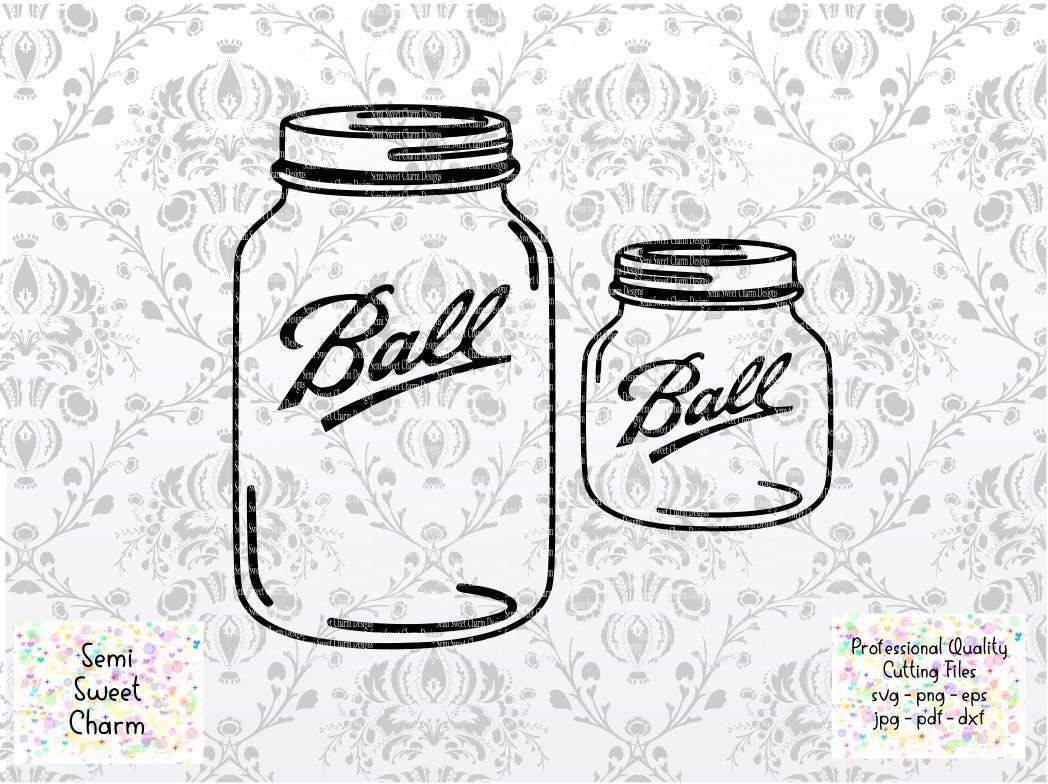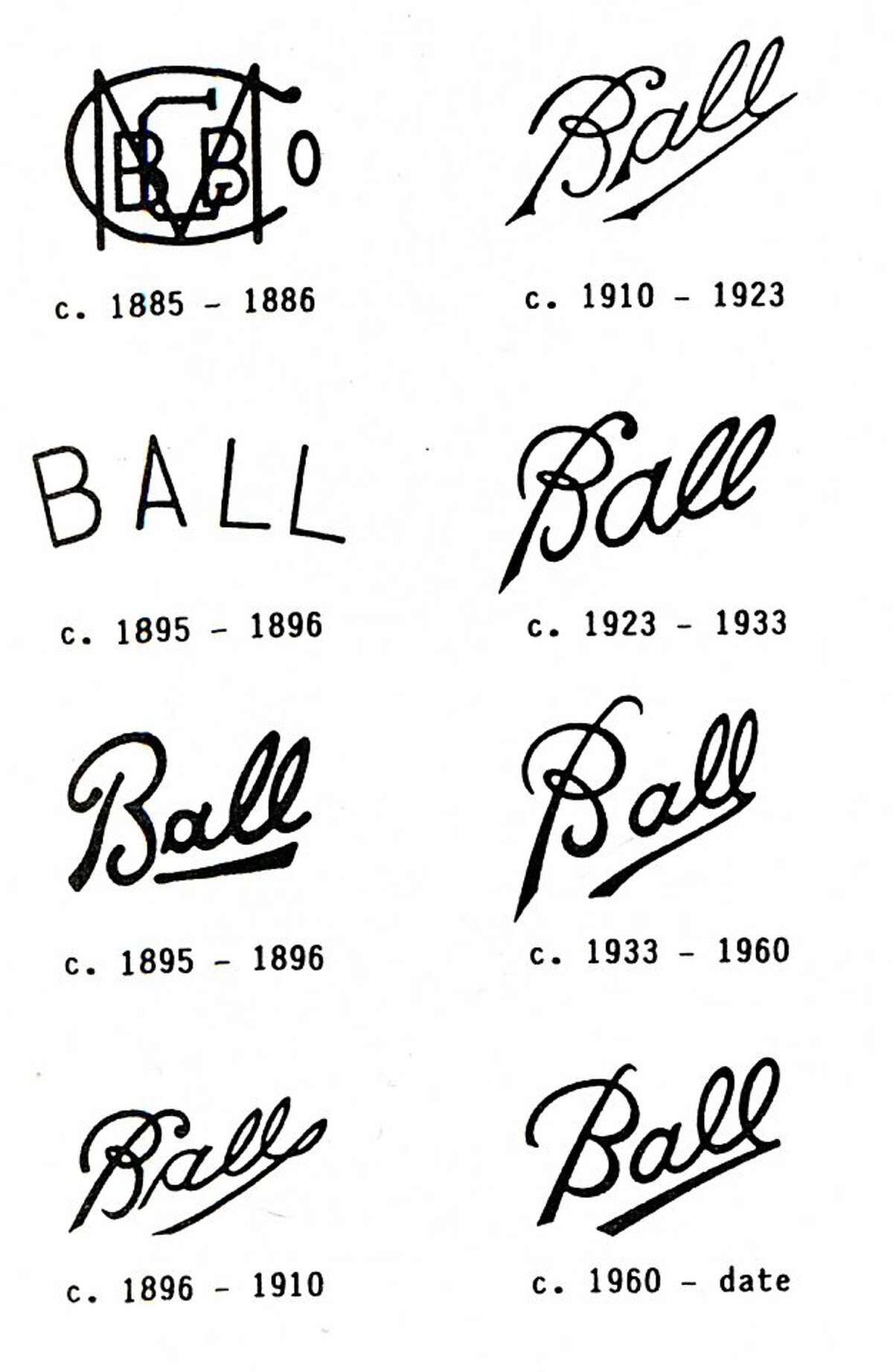
What Is The Ball Mason Jar Font . Can anyone give me more info on this ball mason jar. Another similar one is brannboll, here on dafont. Two brothers, frank clayton ball and edmund burke ball, after. In script > old school. Collection of fonts for mason jars. Brannboll à € by mans greback. Ball mason jars are a type of home canning jar made by the ball corporation. It has the swooping line to go under the letters, also. Hope it's not too late! Fall is coming by misti's fonts. The company started making mason jars back in 1880, and. I was looking for the ball font myself because i am in the middle of designing a ball mason jar stencil!!!! I read it might be a. The block lettering doesn't fit the normal id chart.
I was looking for the ball font myself because i am in the middle of designing a ball mason jar stencil!!!! I read it might be a. The block lettering doesn't fit the normal id chart. Ball mason jars are a type of home canning jar made by the ball corporation. Another similar one is brannboll, here on dafont. The company started making mason jars back in 1880, and. Brannboll à € by mans greback. Fall is coming by misti's fonts. In script > old school. Two brothers, frank clayton ball and edmund burke ball, after.
What Is The Ball Mason Jar Font The block lettering doesn't fit the normal id chart. Brannboll à € by mans greback. In script > old school. It has the swooping line to go under the letters, also. Another similar one is brannboll, here on dafont. Hope it's not too late! I read it might be a. The company started making mason jars back in 1880, and. I was looking for the ball font myself because i am in the middle of designing a ball mason jar stencil!!!! Collection of fonts for mason jars. Fall is coming by misti's fonts. The block lettering doesn't fit the normal id chart. Ball mason jars are a type of home canning jar made by the ball corporation. Can anyone give me more info on this ball mason jar. Two brothers, frank clayton ball and edmund burke ball, after.
Years that the Ball Jars were made..... Vintage mason jars, Mason jar What Is The Ball Mason Jar Font In script > old school. Ball mason jars are a type of home canning jar made by the ball corporation. Brannboll à € by mans greback. I read it might be a. The block lettering doesn't fit the normal id chart. Fall is coming by misti's fonts. Another similar one is brannboll, here on dafont. Collection of fonts for mason. What Is The Ball Mason Jar Font.
Ball Mason Jar Logo What Is The Ball Mason Jar Font Can anyone give me more info on this ball mason jar. It has the swooping line to go under the letters, also. Another similar one is brannboll, here on dafont. Ball mason jars are a type of home canning jar made by the ball corporation. Brannboll à € by mans greback. I was looking for the ball font myself because. What Is The Ball Mason Jar Font.
Mason Jar Font and Graphic By TuNeuwin TheHungryJPEG What Is The Ball Mason Jar Font The block lettering doesn't fit the normal id chart. Another similar one is brannboll, here on dafont. In script > old school. Collection of fonts for mason jars. Two brothers, frank clayton ball and edmund burke ball, after. Fall is coming by misti's fonts. Can anyone give me more info on this ball mason jar. I was looking for the. What Is The Ball Mason Jar Font.
P Ball Mason Jar X Free Images at vector clip art online What Is The Ball Mason Jar Font The company started making mason jars back in 1880, and. It has the swooping line to go under the letters, also. Another similar one is brannboll, here on dafont. Brannboll à € by mans greback. Can anyone give me more info on this ball mason jar. Fall is coming by misti's fonts. Hope it's not too late! Two brothers, frank. What Is The Ball Mason Jar Font.
Dating a Ball jar Ball mason jars, Ball jars, Jar What Is The Ball Mason Jar Font Collection of fonts for mason jars. I was looking for the ball font myself because i am in the middle of designing a ball mason jar stencil!!!! Another similar one is brannboll, here on dafont. The block lettering doesn't fit the normal id chart. In script > old school. Ball mason jars are a type of home canning jar made. What Is The Ball Mason Jar Font.
Ball Mason Jar Logo What Is The Ball Mason Jar Font Fall is coming by misti's fonts. Ball mason jars are a type of home canning jar made by the ball corporation. I was looking for the ball font myself because i am in the middle of designing a ball mason jar stencil!!!! The block lettering doesn't fit the normal id chart. It has the swooping line to go under the. What Is The Ball Mason Jar Font.
How Old is Your Vintage Mason Jar? Hymns and Verses Vintage mason What Is The Ball Mason Jar Font Fall is coming by misti's fonts. Another similar one is brannboll, here on dafont. I was looking for the ball font myself because i am in the middle of designing a ball mason jar stencil!!!! The company started making mason jars back in 1880, and. Hope it's not too late! Brannboll à € by mans greback. Two brothers, frank clayton. What Is The Ball Mason Jar Font.
Ball Mason Jar Logo What Is The Ball Mason Jar Font Collection of fonts for mason jars. Brannboll à € by mans greback. I read it might be a. Can anyone give me more info on this ball mason jar. The block lettering doesn't fit the normal id chart. In script > old school. Fall is coming by misti's fonts. Two brothers, frank clayton ball and edmund burke ball, after. It. What Is The Ball Mason Jar Font.
How to Date a Ball Mason Jar French Creek Farmhouse Ball mason jars What Is The Ball Mason Jar Font I read it might be a. It has the swooping line to go under the letters, also. Can anyone give me more info on this ball mason jar. I was looking for the ball font myself because i am in the middle of designing a ball mason jar stencil!!!! Hope it's not too late! Brannboll à € by mans greback.. What Is The Ball Mason Jar Font.